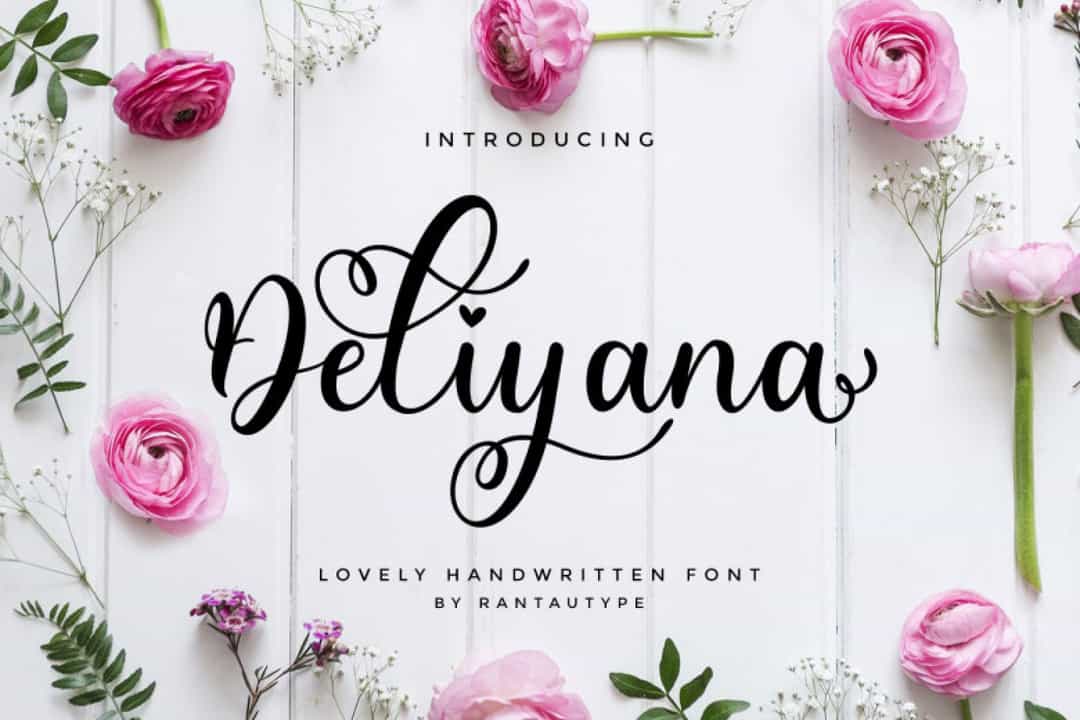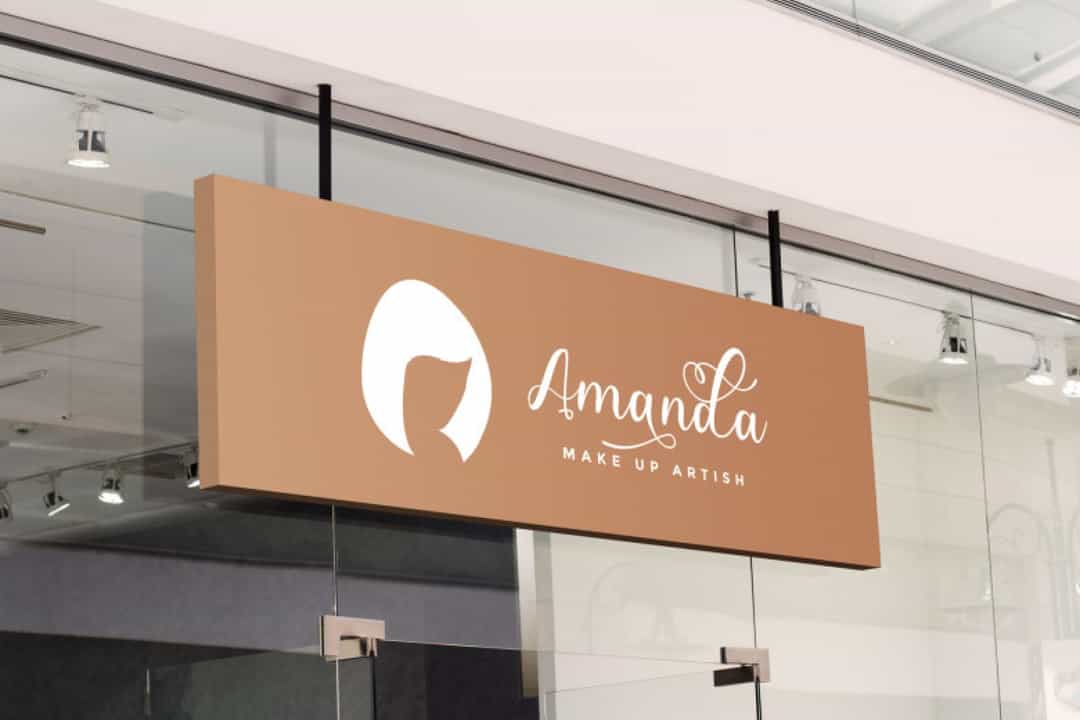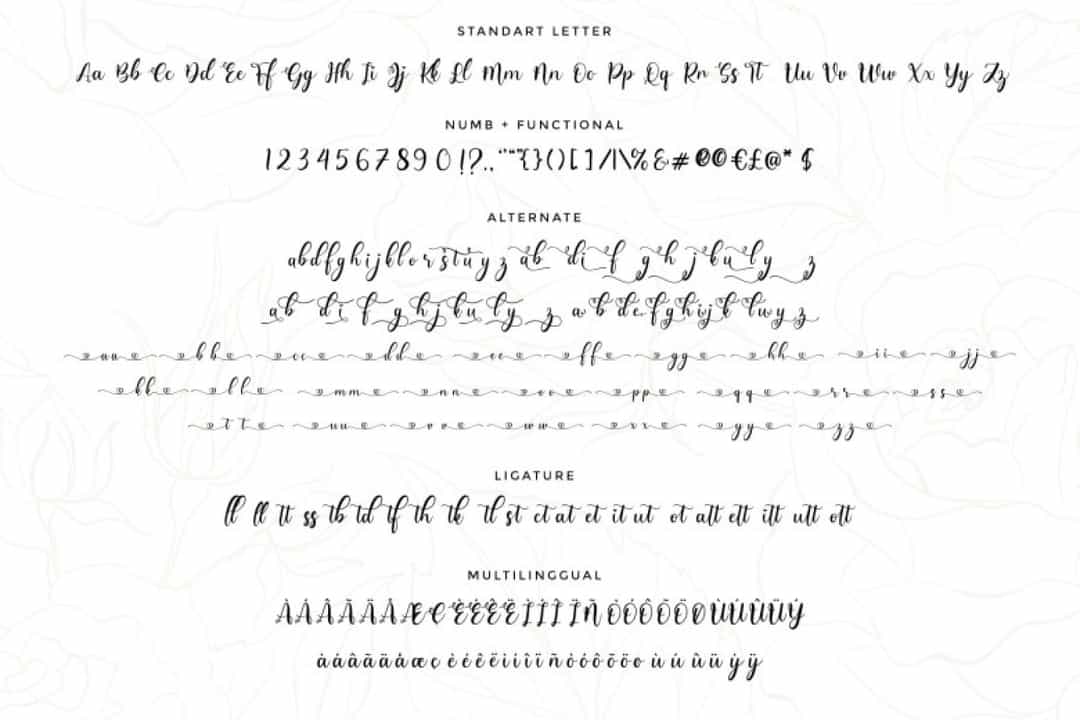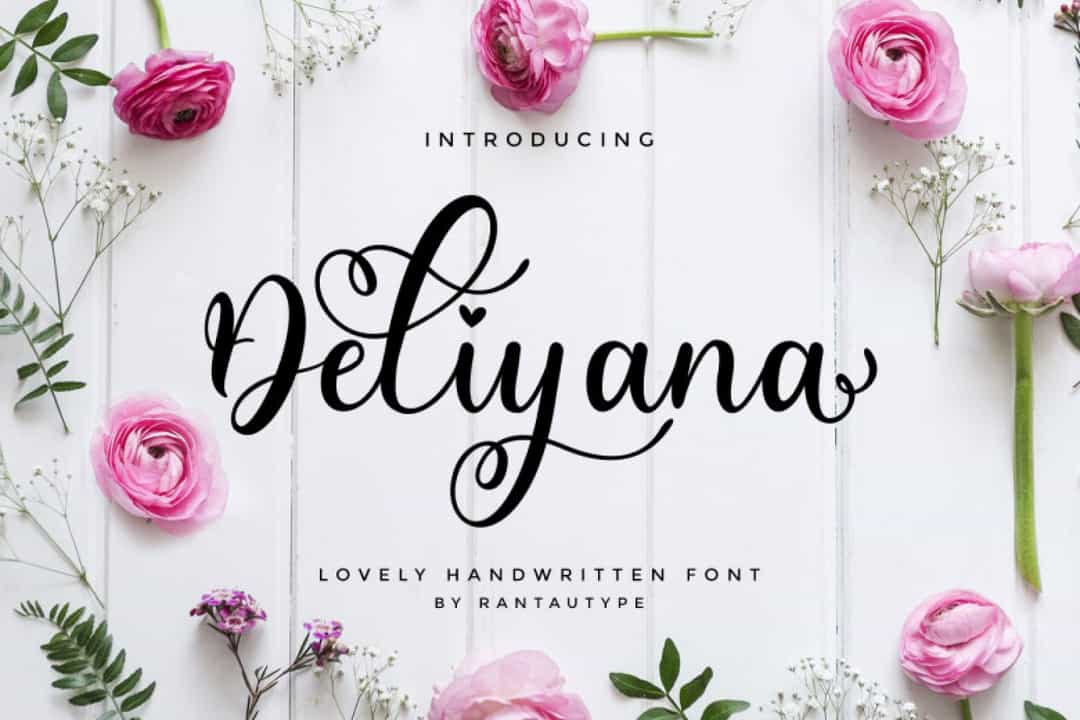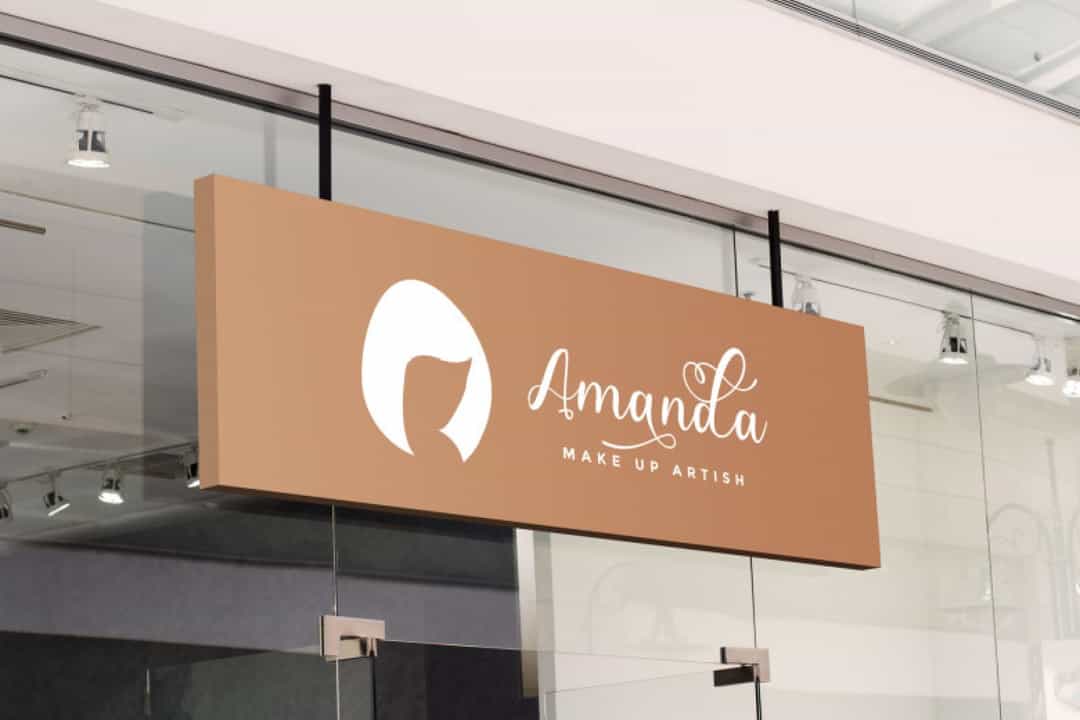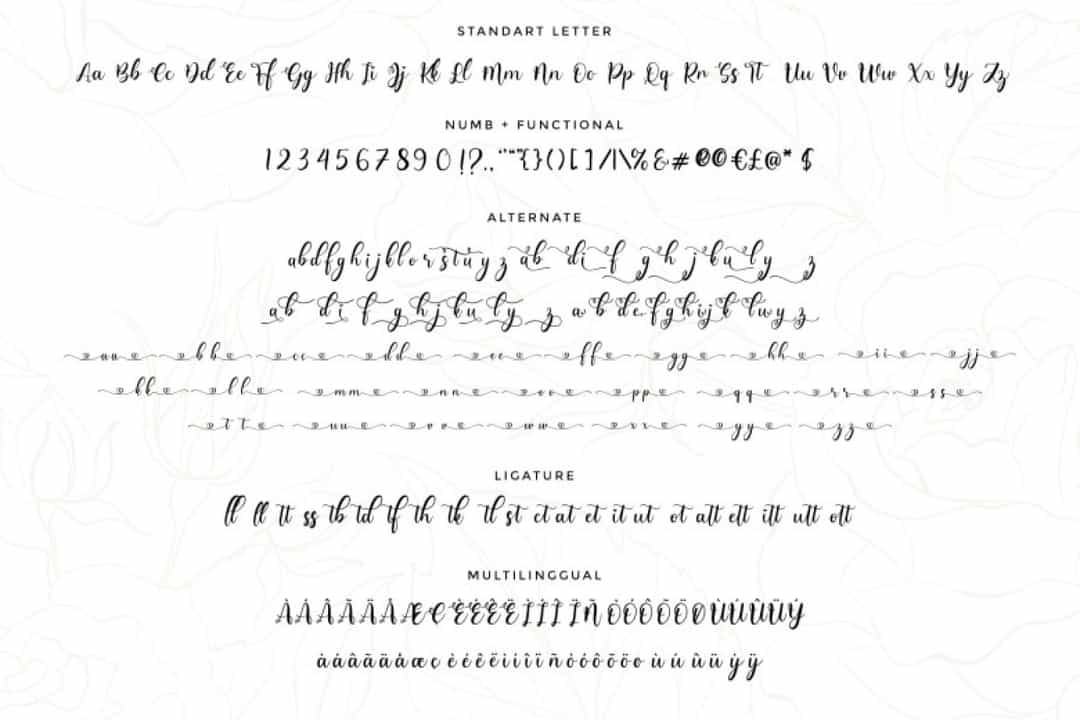
Discover Deliyana Font, part of the Calligraphy Handwritten Script collection—a versatile and unique font perfect for adding a personal touch to your projects. Download it for free and enjoy crafting designs with style, from invitations to social media posts. This font is available exclusively for personal use, giving you the freedom to create without limits. Unlock your creativity with Deliyana Font today!
This font can be best defined as a professional font that can be read easily and comes with a contemporary yet cute and feminine look that makes Deliyana very versatile. I employ Deliyana in water marking photos as well as signature or logo designs on album art, quotes, business cards, or any other design-related projects; it is versatile and will add magic to your work.